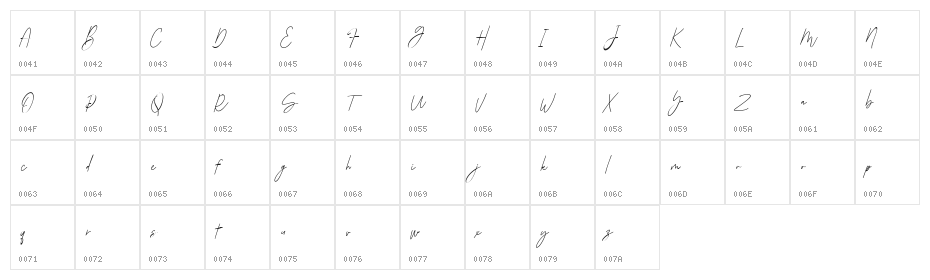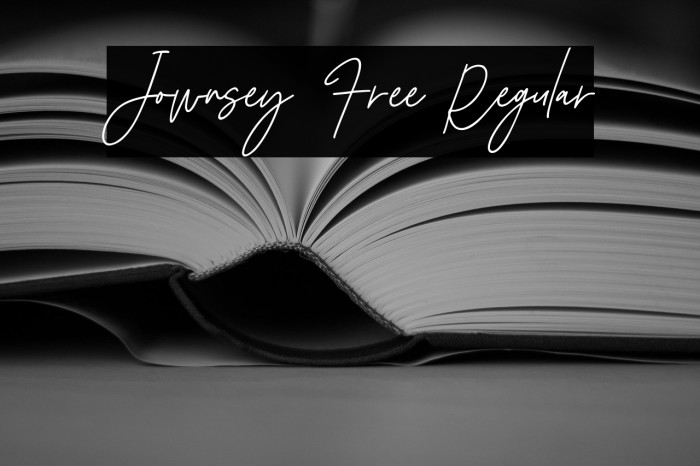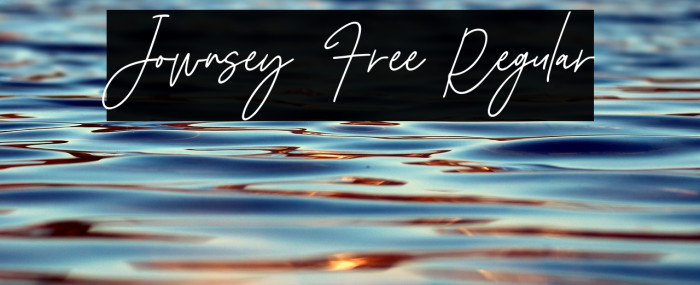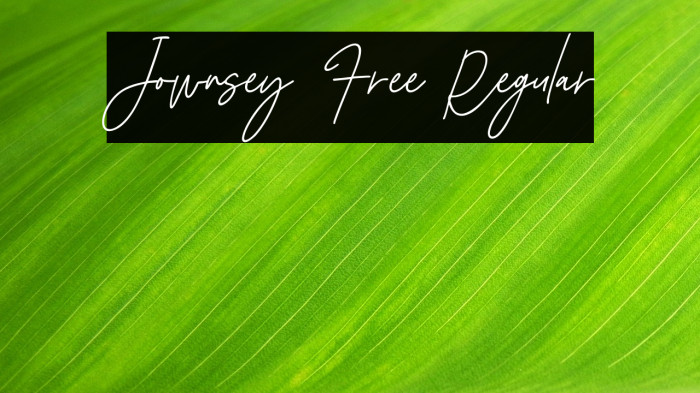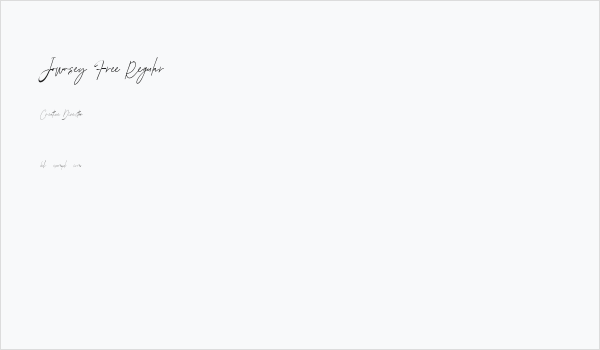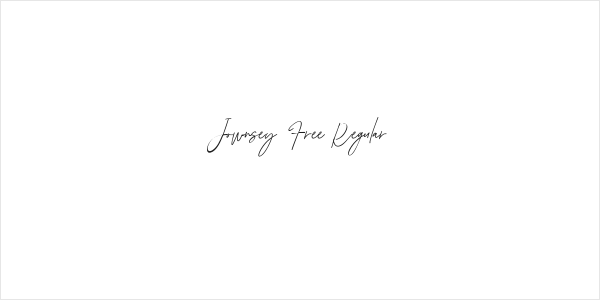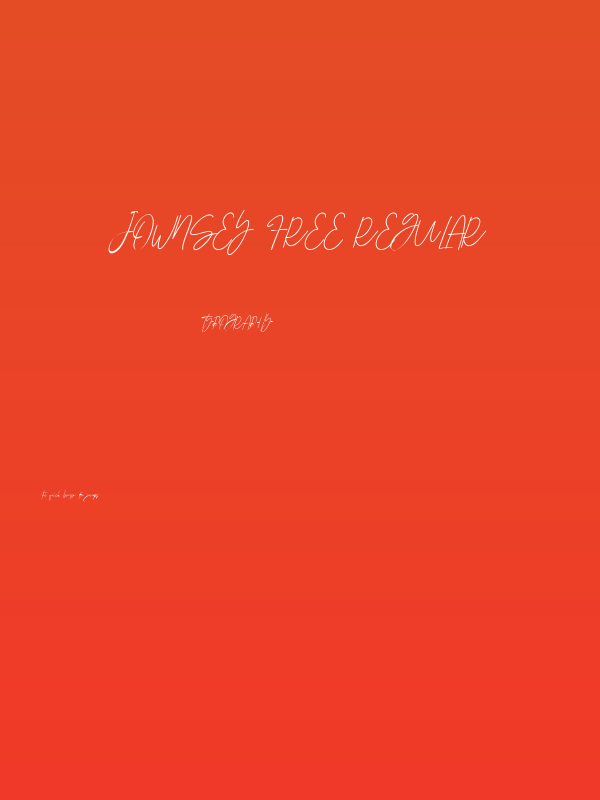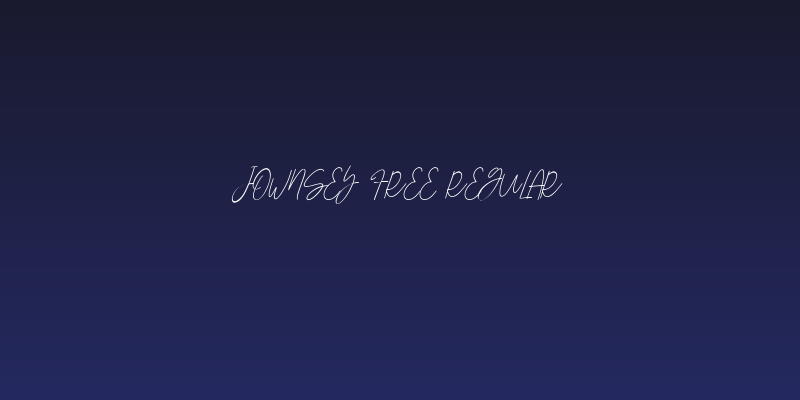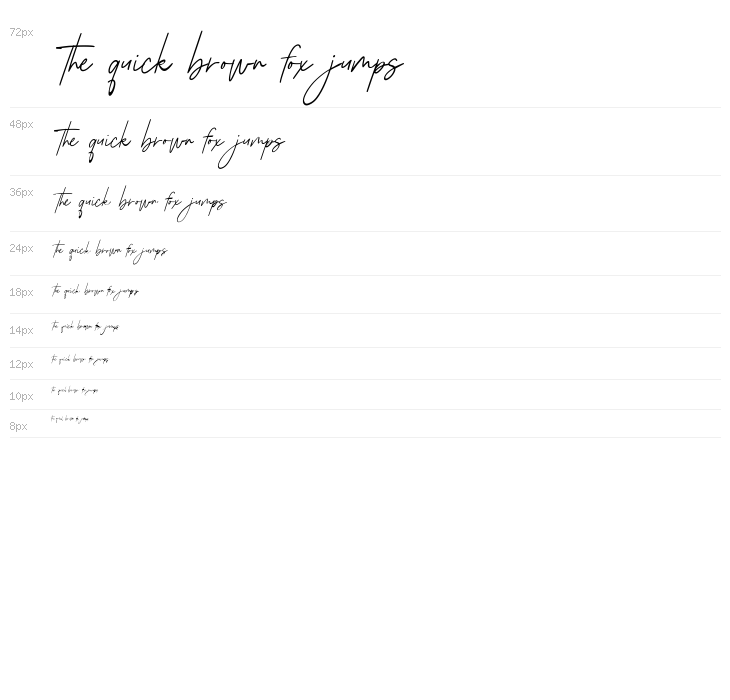
Jownsey Free Regular Font
Jownsey Free Regular Description
This font exhibits a modern, handwritten style with a casual and flowing appearance. The letters are elegantly connected, creating a seamless and natural look. The strokes are thin and consistent, giving it a delicate and airy feel. The uppercase letters are slightly larger and more pronounced, while the lowercase letters maintain a smooth and cohesive flow. The numbers and special characters are designed to match the overall aesthetic, ensuring uniformity across all elements. This font is perfect for projects that require a personal touch, such as invitations, greeting cards, or branding materials.